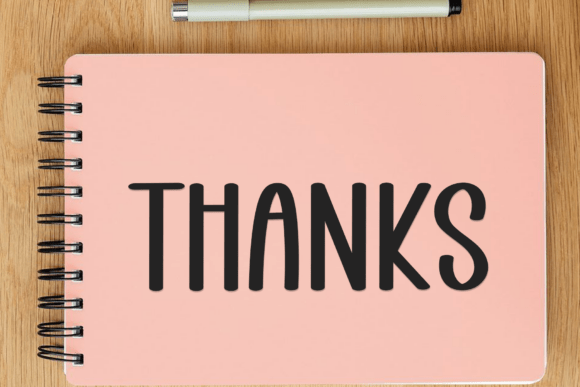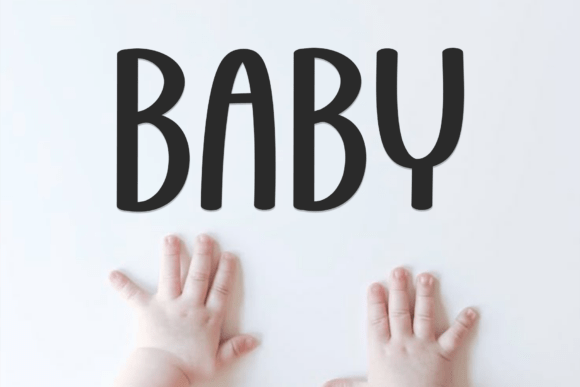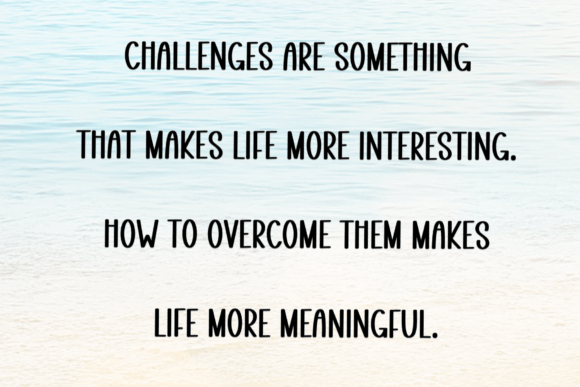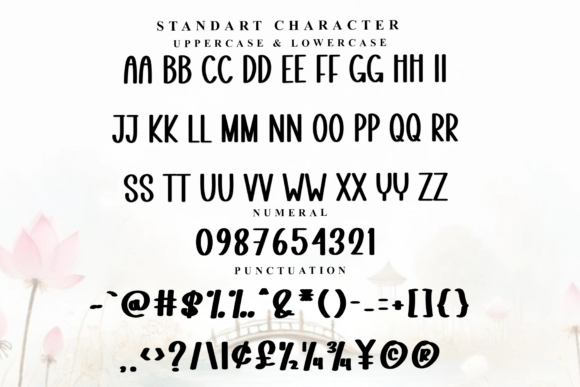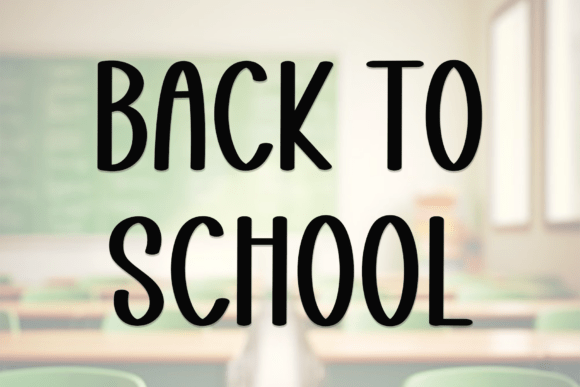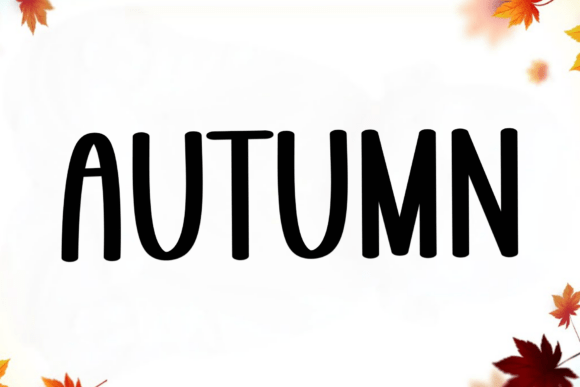
Camila Font: Elevate Your Designs with a Unique and Versatile Typeface
In the world of typography, a font can make or break a design. It’s the perfect blend of style, elegance, and creativity that can elevate a project from ordinary to extraordinary. If you’re a designer, crafter, or creative looking for a font that can add a touch of sophistication and charm to your work, look no further than Camila Font. In this article, we’ll explore the features, benefits, and uses of Camila Font, and why it’s becoming a favorite among designers and crafters alike.
A Beautiful and Eye-Catching Font
Camila Font is a stunning typeface designed with a soft, unique touch that sets it apart from other fonts. Its distinctive strokes give it a special character, making it both meaningful and versatile for future use. Whether you’re working on a design project, crafting a handmade card, or creating a digital masterpiece, Camila Font is the perfect choice. Its elegant and refined appearance makes it suitable for a wide range of applications, from formal documents to creative projects.
Key Features of Camila Font
- Unique and Distinctive Strokes: Camila Font boasts a one-of-a-kind design, with strokes that are both soft and distinctive. This gives the font a special character that will make your designs stand out.
- Versatile and Meaningful: With its elegant appearance and versatile design, Camila Font is perfect for a wide range of projects, from design and crafts to digital creations.
- Various Characters: Camila Font comes with a range of characters, making it ideal for use in various design projects, from logos and branding to signage and display text.
Camila Font is a dream come true for designers and crafters. Its elegant and refined appearance makes it perfect for use in a variety of projects, including:
- Logos and Branding: Create a lasting impression with a custom logo or brand identity that showcases your unique style.
- Signage and Display Text: Use Camila Font to create eye-catching signage and display text that grabs attention and communicates your message.
- Handmade Crafts: Add a touch of elegance to your handmade crafts, such as cards, gift tags, and other paper crafts.
- Digital Creations: Use Camila Font to add a touch of sophistication to your digital creations, including social media graphics, blog posts, and website designs.
Benefits of Using Camila Font
So why choose Camila Font for your next project? Here are just a few benefits of using this beautiful and versatile typeface:
- Enhance Your Designs: Camila Font will elevate your designs, making them more appealing to a wide range of audiences across different artistic and creative fields.
- Stand Out from the Crowd: With its unique and distinctive strokes, Camila Font will help your designs stand out from the crowd and make a lasting impression.
In conclusion, Camila Font is a beautiful and eye-catching typeface that is perfect for designers, crafters, and creatives looking to add a touch of elegance and sophistication to their work. With its unique and distinctive strokes, versatile design, and compatibility across multiple applications, Camila Font is the perfect choice for a wide range of projects. Whether you’re working on a design project, crafting a handmade card, or creating a digital masterpiece, Camila Font is sure to elevate your designs and make them shine.